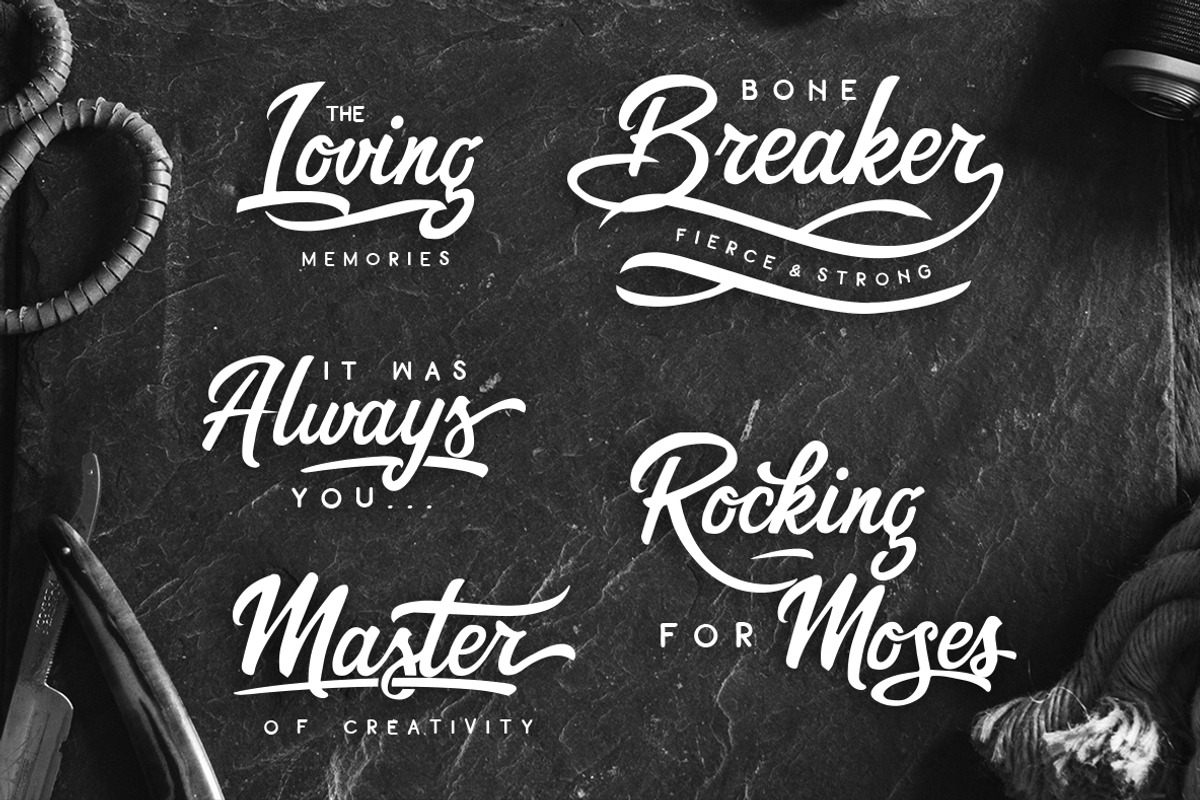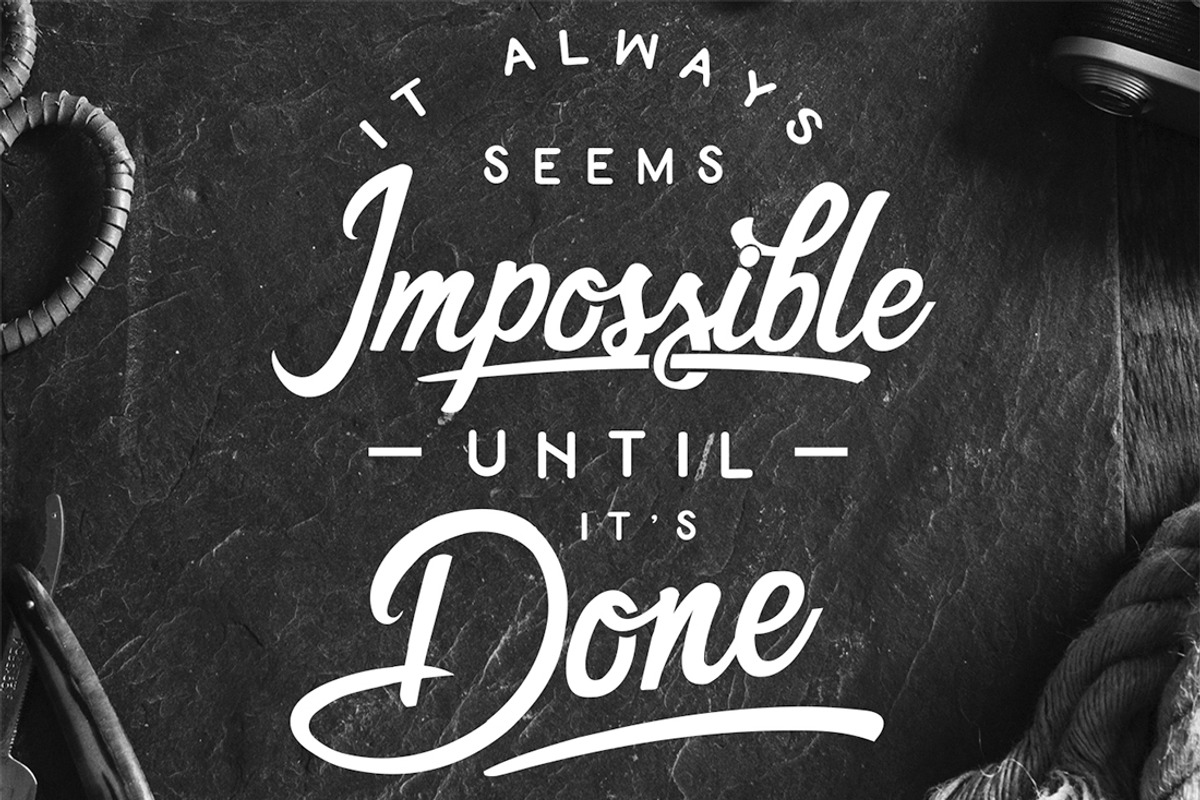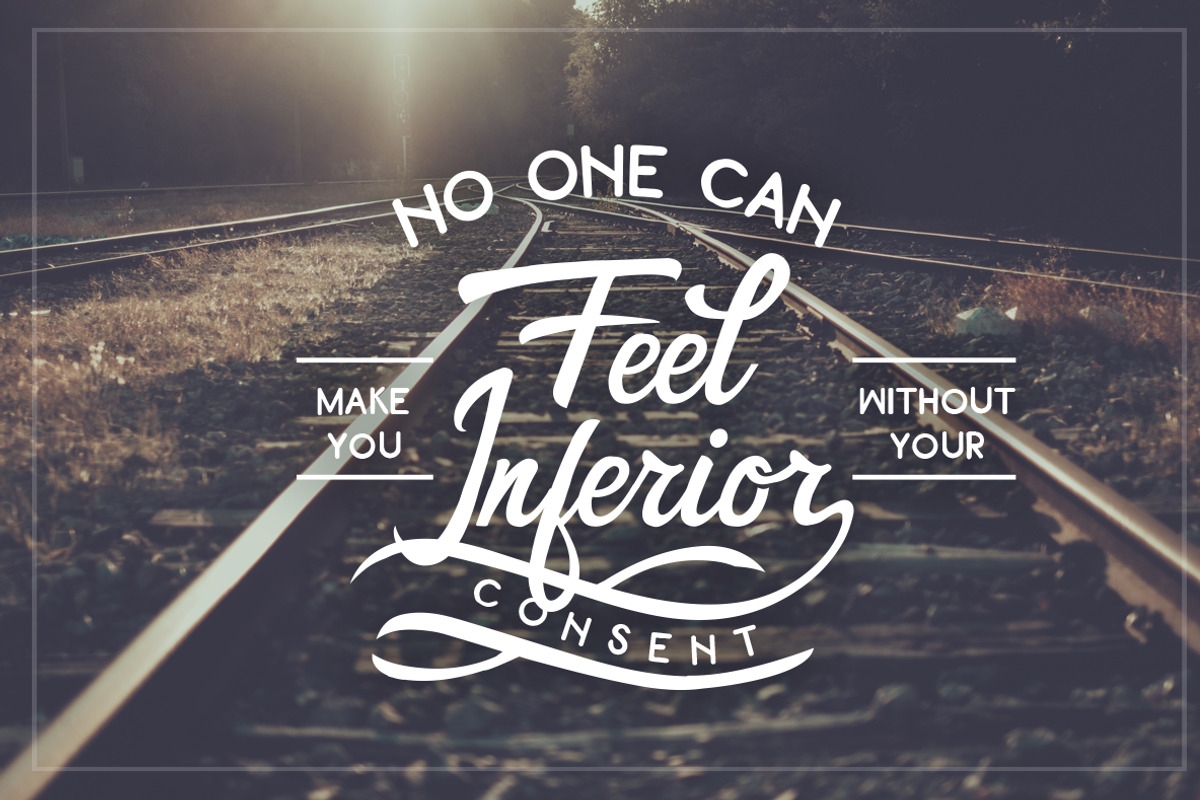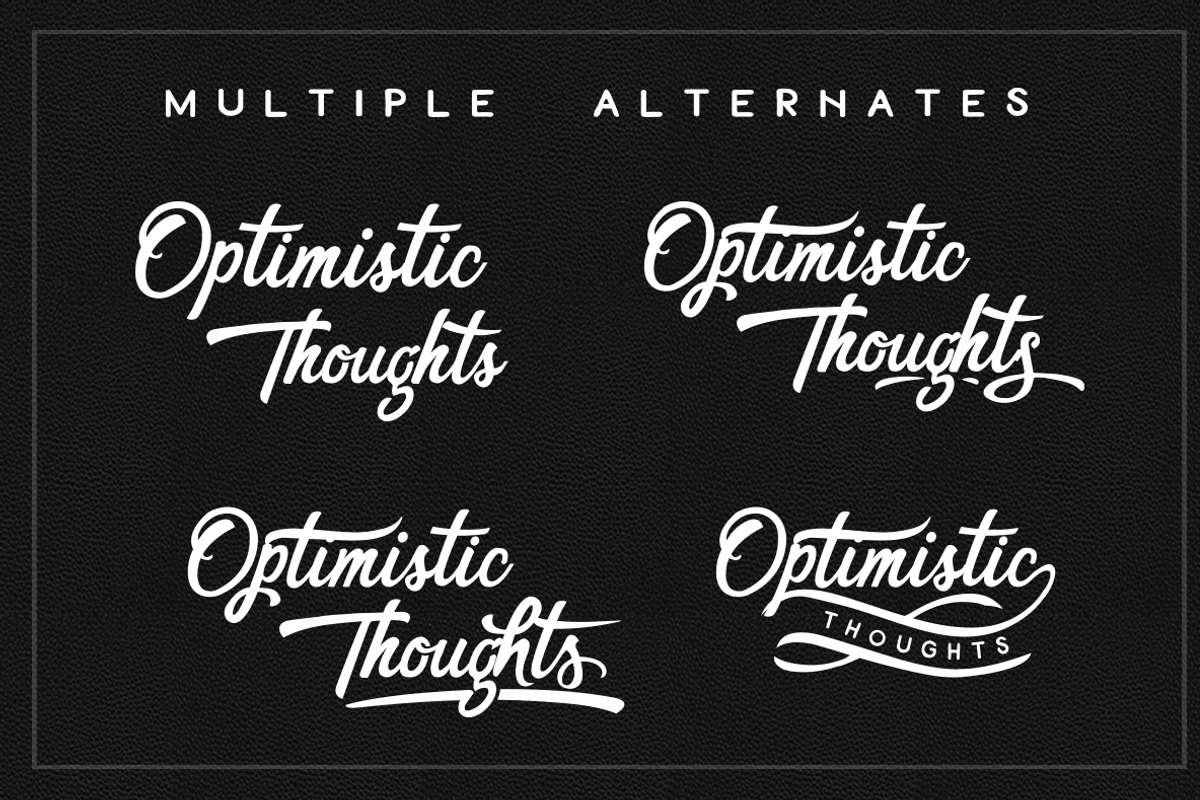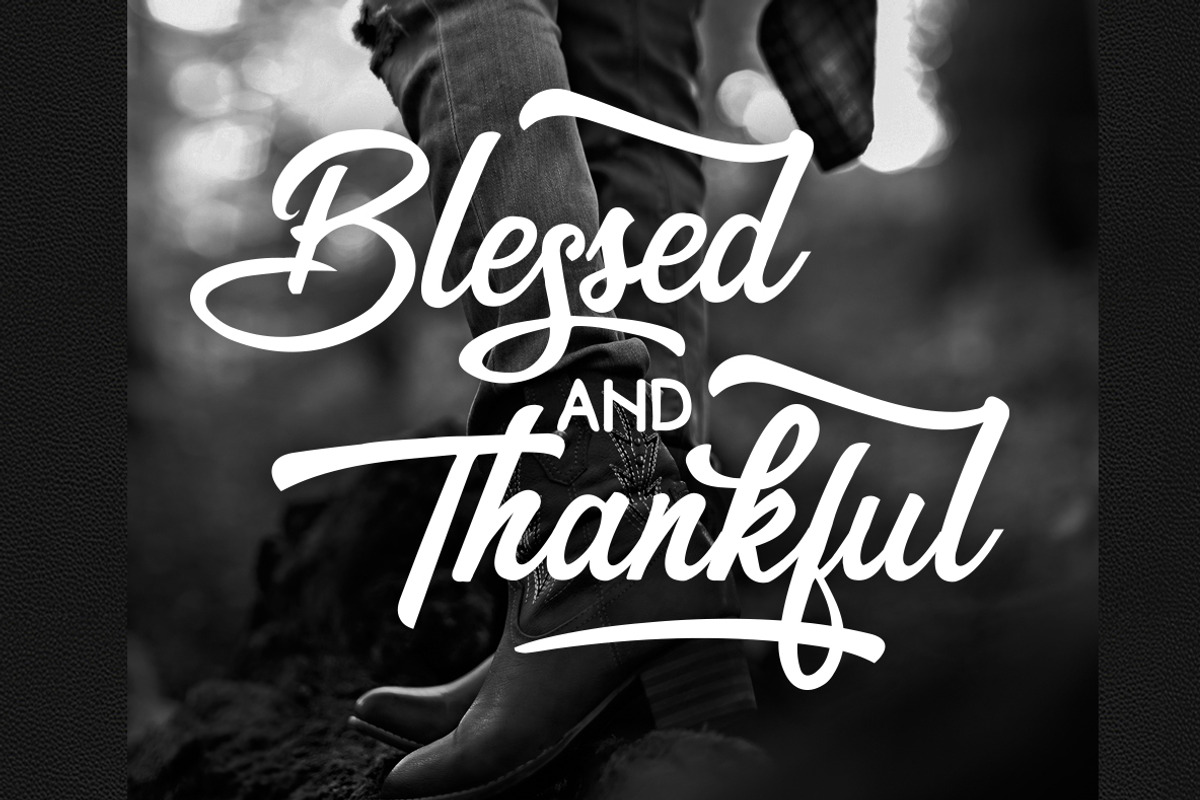
The Trickster Font Duo + extras
The Trickster Font Duo + extras by BlackCatsMedia is a font selected for branding, posters, packaging, typography.
Why The Trickster Font Duo + extras is worth a look
The Trickster Font Duo + extras by BlackCatsMedia fits naturally into Branding, posters, packaging, typography.